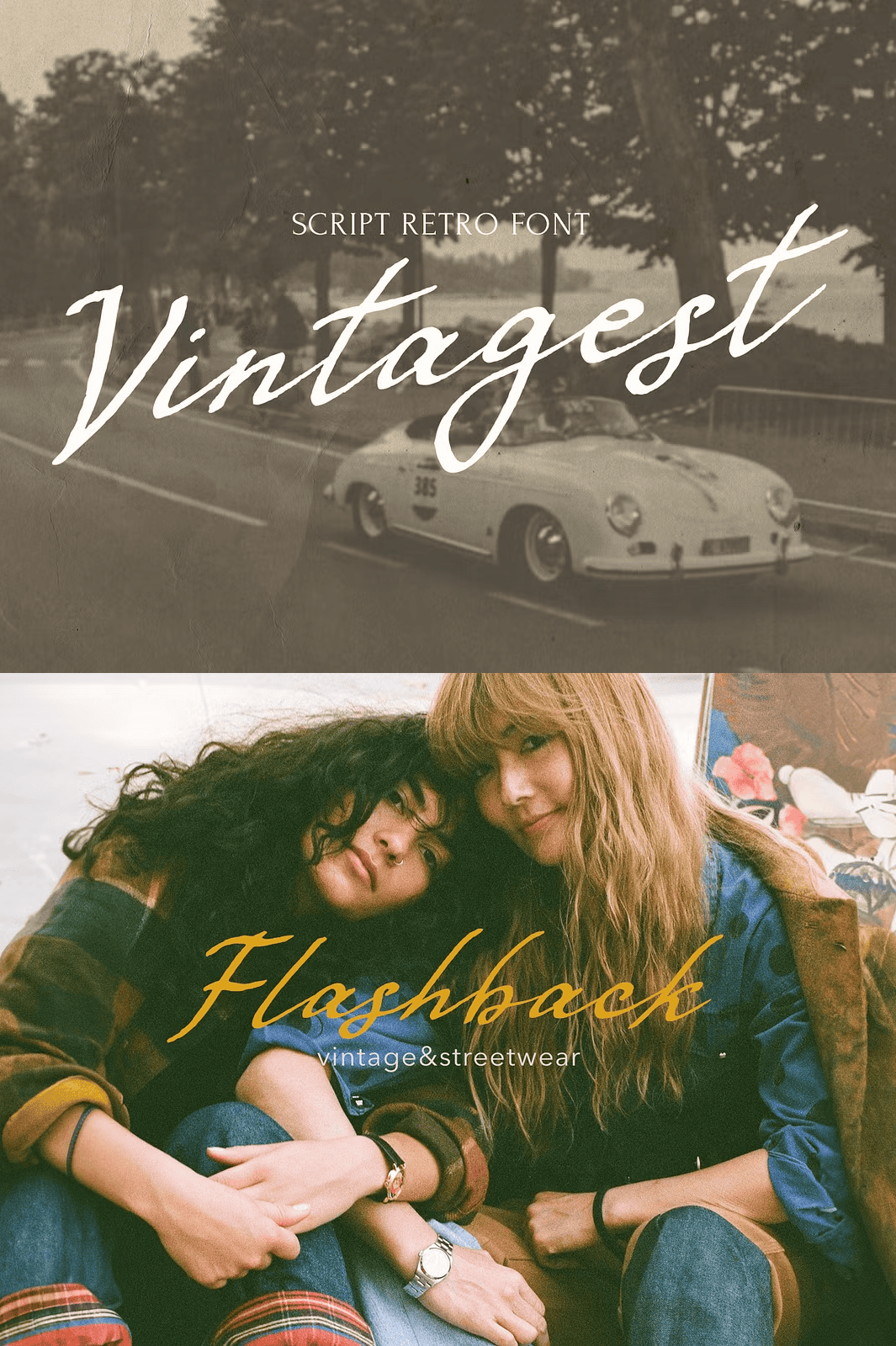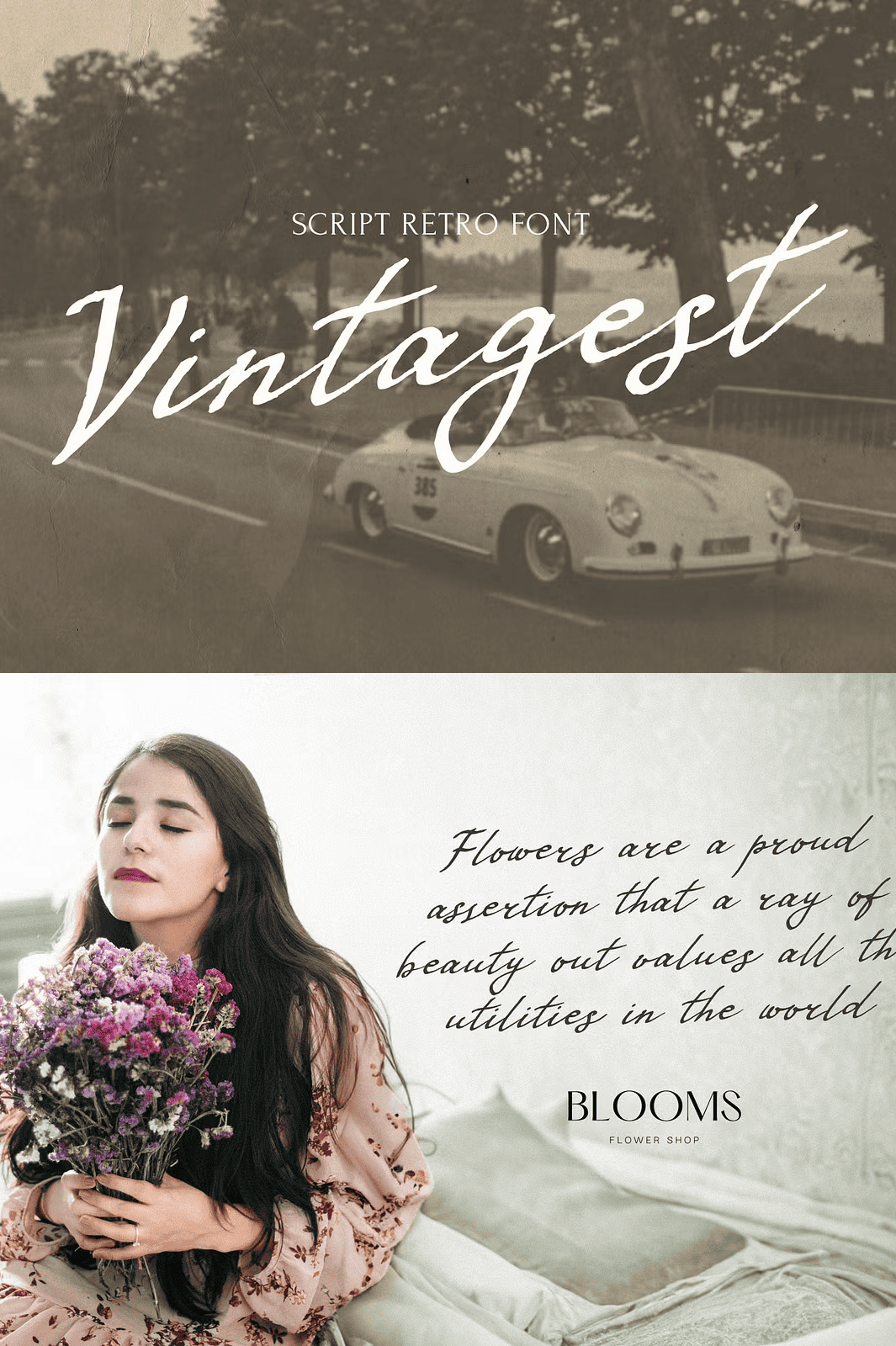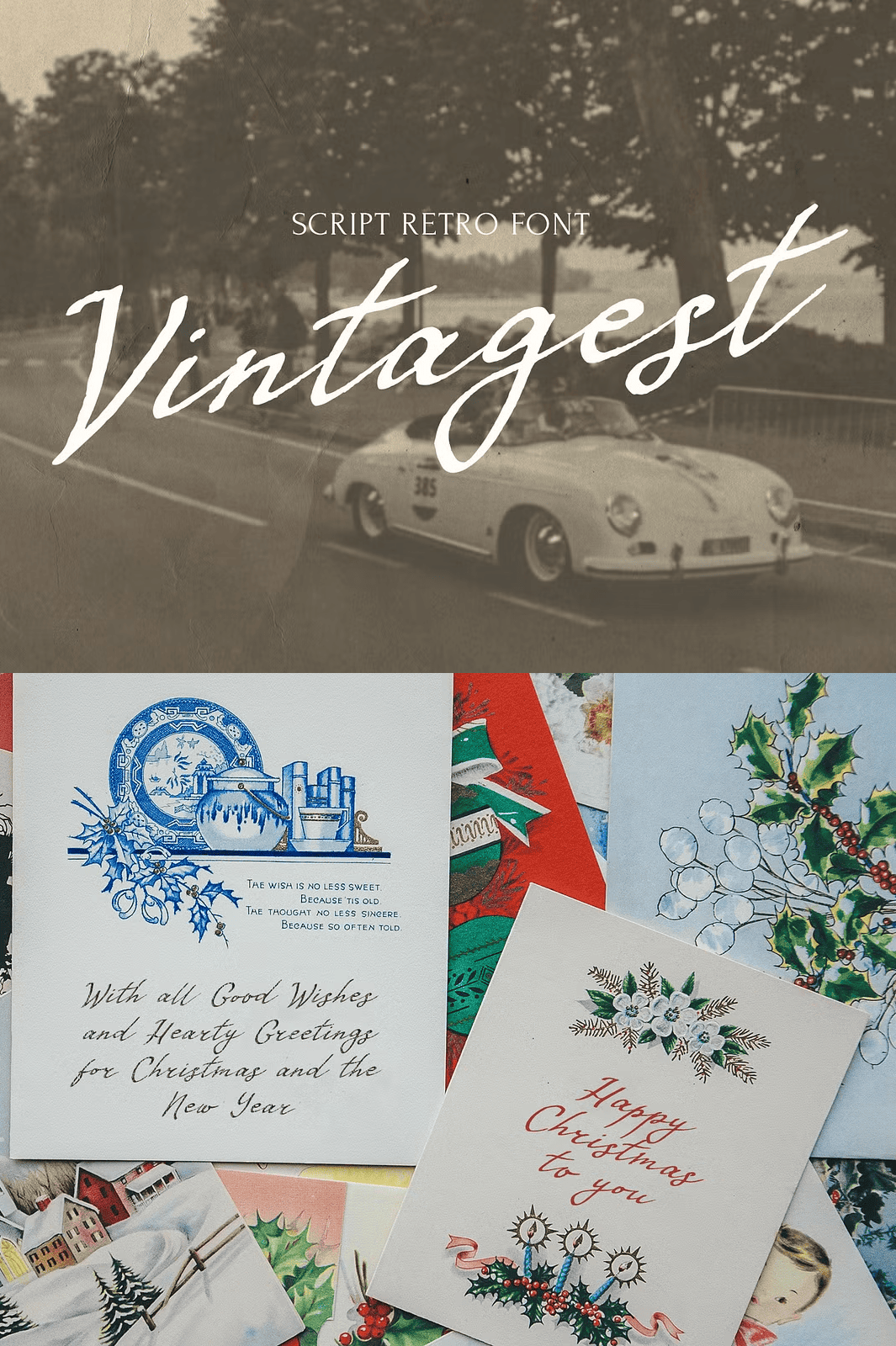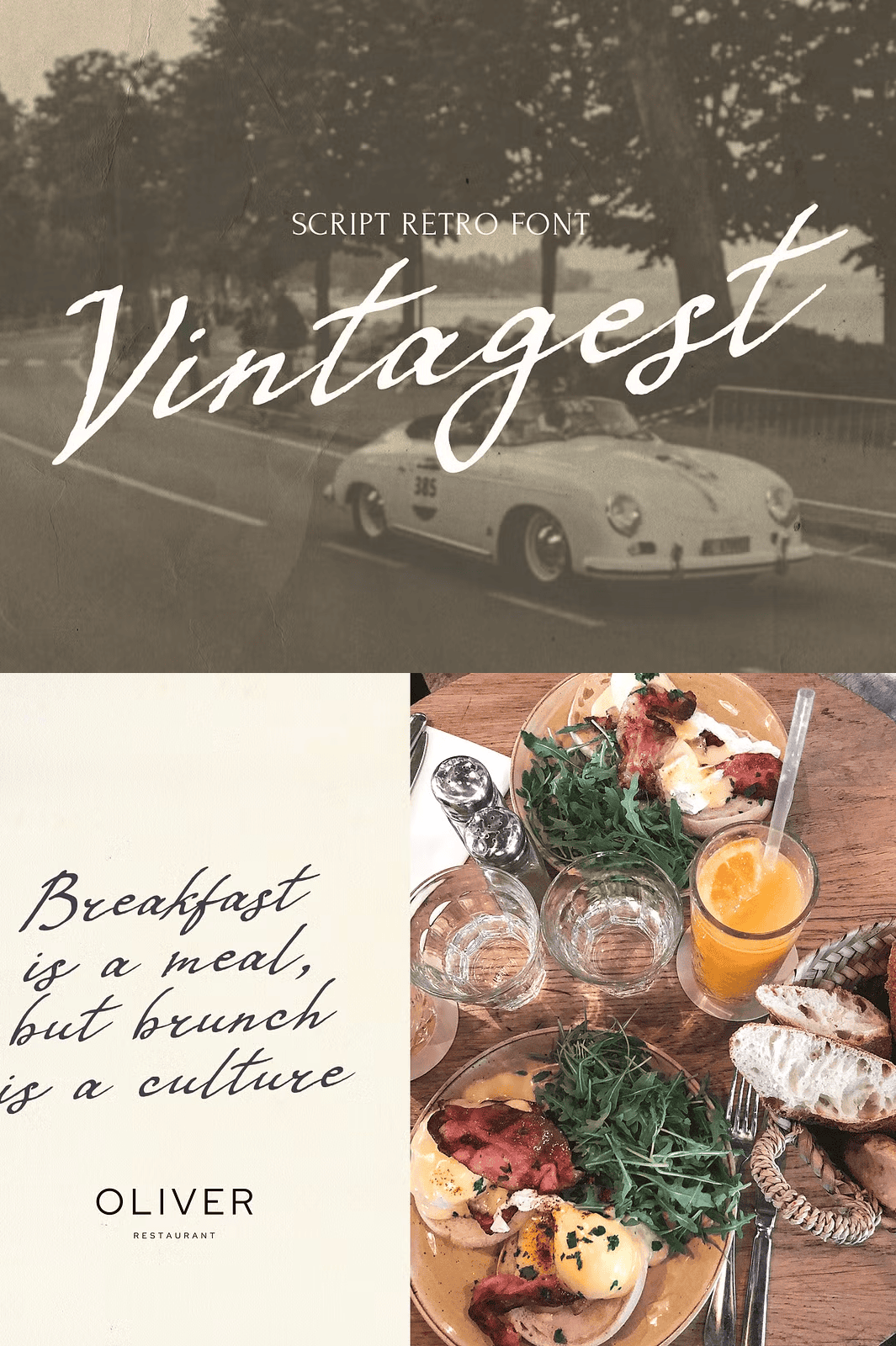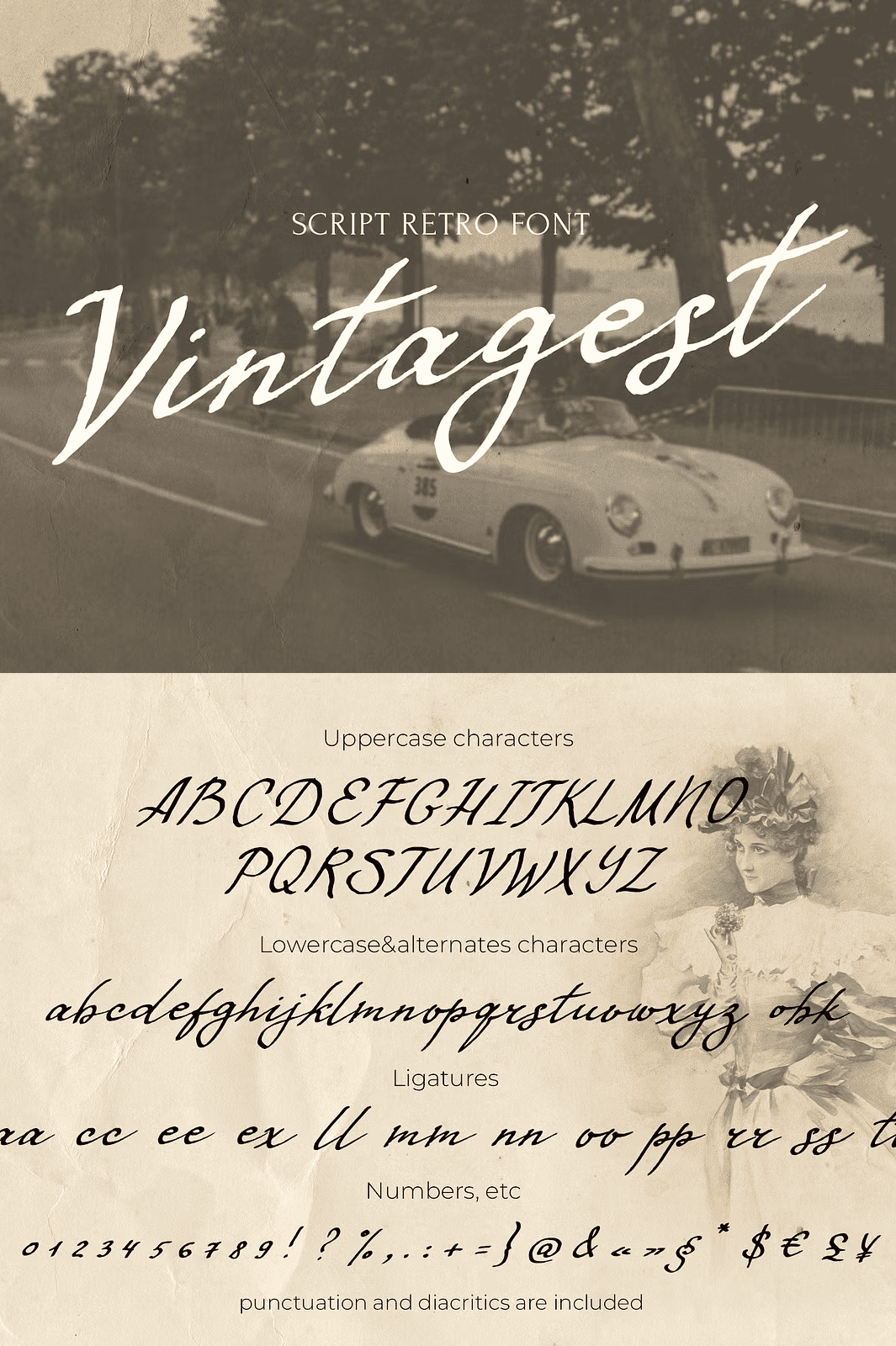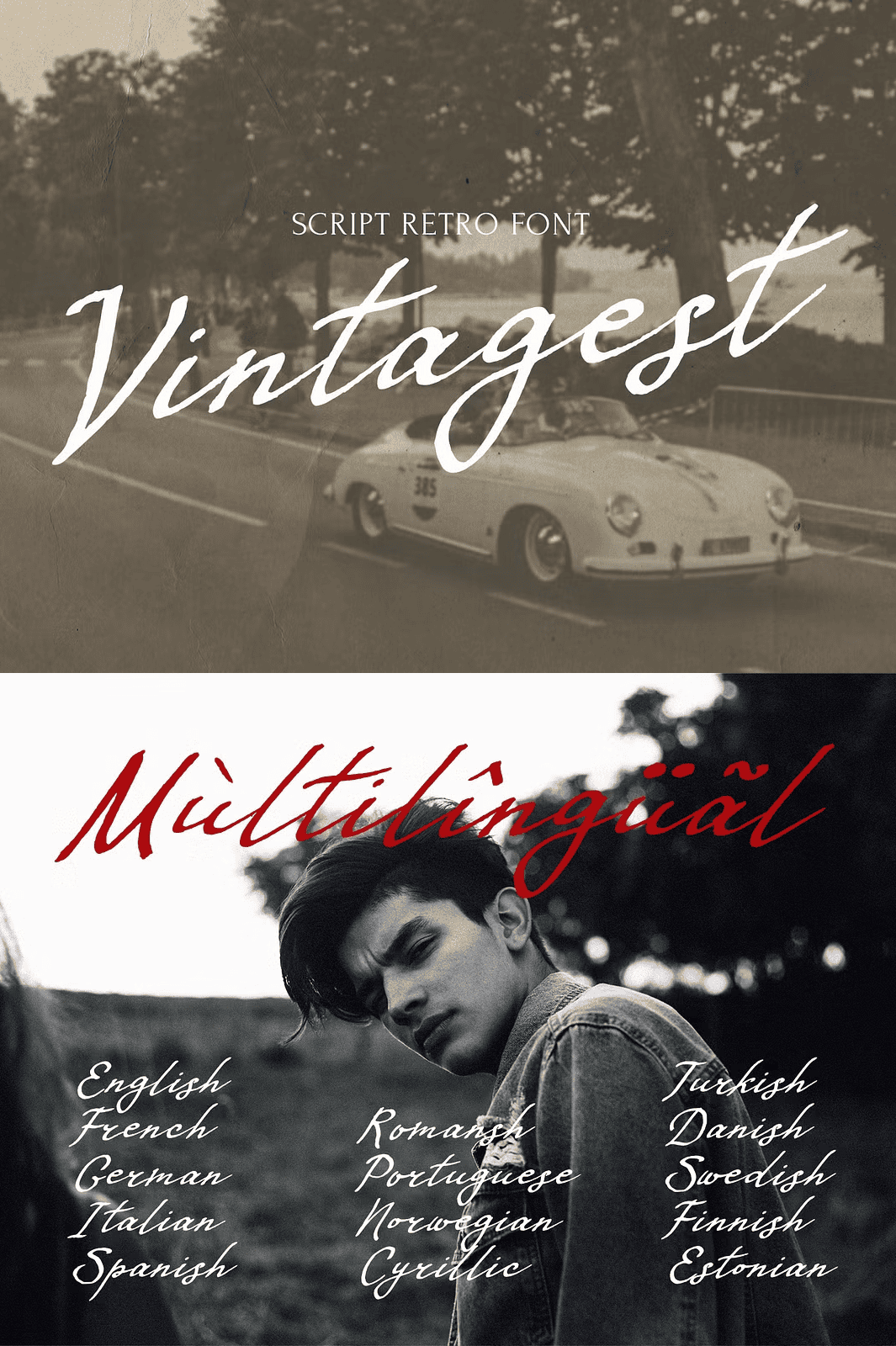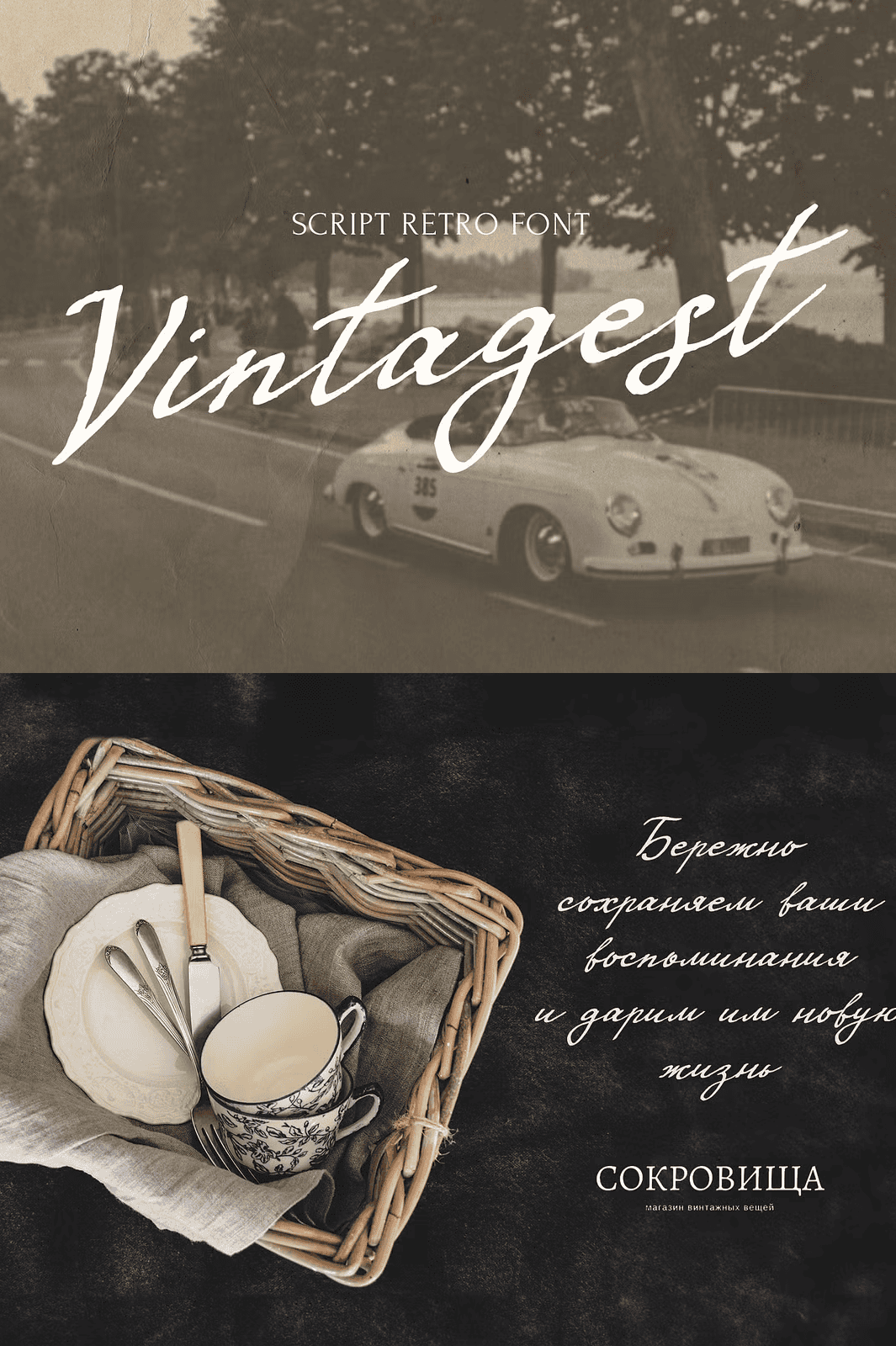
Rediscover the Art of Handwritten Storytelling
Step into a world of timeless elegance and heartfelt craftsmanship with **VINTAGEST**, a hand-drawn retro script font inspired by the delicate, deliberate penmanship of bygone eras. Created with a flat pen and ink, this vintage typeface captures the soul of handwritten letters those careful, intimate messages passed between generations. Every curve and flourish is a tribute to the artistry of the past, making VINTAGEST the perfect choice for designers who value authenticity, emotional depth, and visual storytelling.
Whether you’re building a nostalgic brand identity, designing packaging with character, crafting compelling advertising copy, or enhancing a website or blog with handcrafted appeal, VINTAGEST transforms your work into a narrative experience. It’s not just typograph it’s a mood, a memory, and a legacy.
Powerful Design Tools for Exceptional Creativity
VINTAGEST is packed with professional-grade features to fuel your most ambitious projects:
– **Rich Ligature Set:** A comprehensive library of flowing ligatures ensures your text looks natural, balanced, and expressive just like real handwriting.
– **Multiple Stylistic Alternates:** Access diverse character forms to add variation and prevent repetition, giving your design unique personality and visual rhythm.
– **Multilingual & Cyrillic Support:** Fully equipped for global reach with robust support for English, French, German, Italian, Spanish, Portuguese, Scandinavian languages, Turkish, and **Cyrillic scripts**. Test your language by typing any text see if every character appears seamlessly.
This isn’t just a font it’s a versatile creative arsenal.
Design with Purpose and Precision
Maximize your creative potential with features designed for professionals:
– **Professional-Grade Output:** From high-resolution print layouts to crisp web graphics, VINTAGEST delivers clarity and detail in every context.
– **Ideal for Branding & Marketing:** Stand out in a crowded market. Use VINTAGEST to craft distinctive logos, bold packaging designs, and memorable promotional materials.
– **Perfect for Digital Content:** Enhance landing pages, blog headers, social media graphics, and email newsletters with a human touch that builds trust and connection.